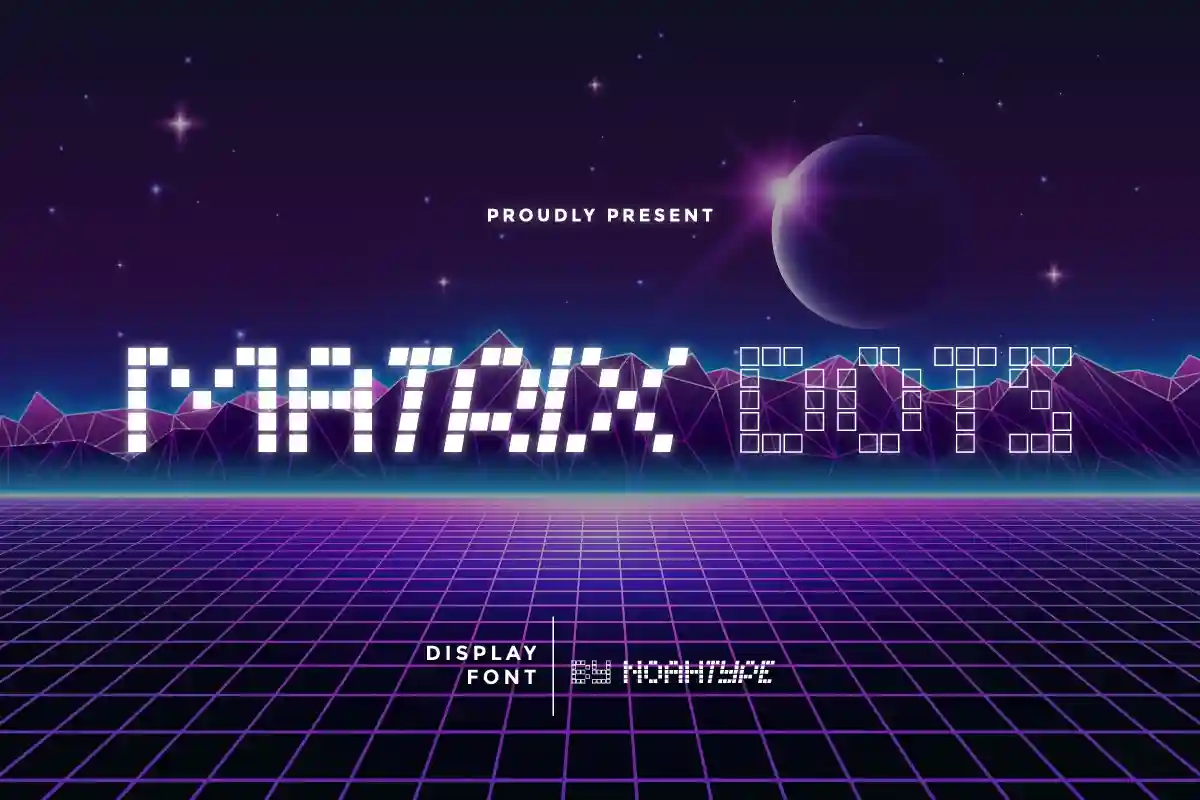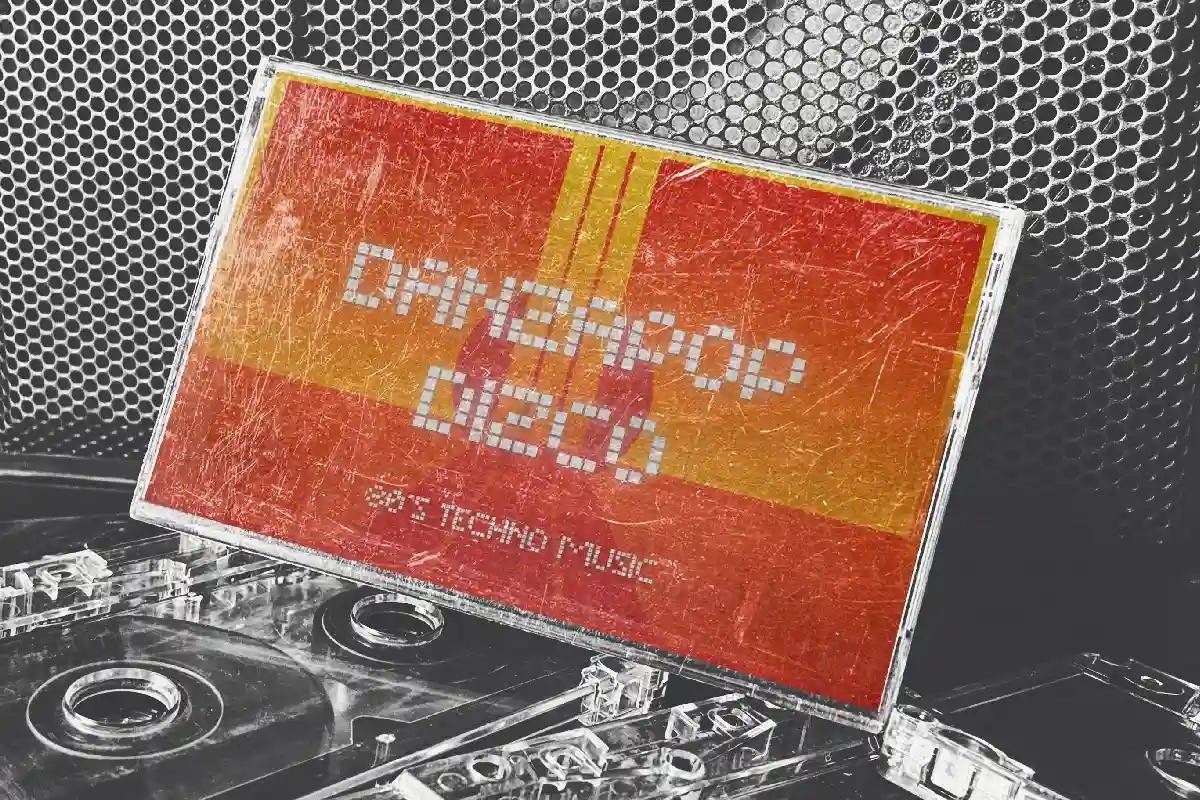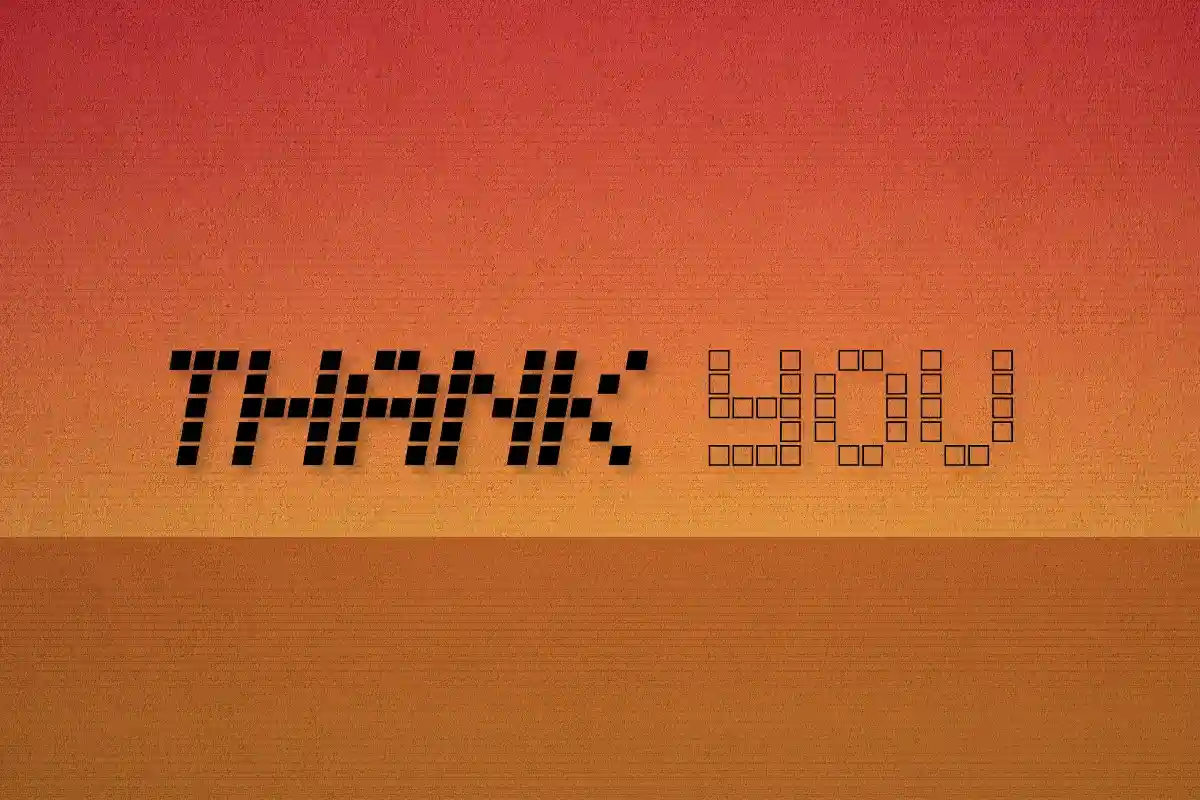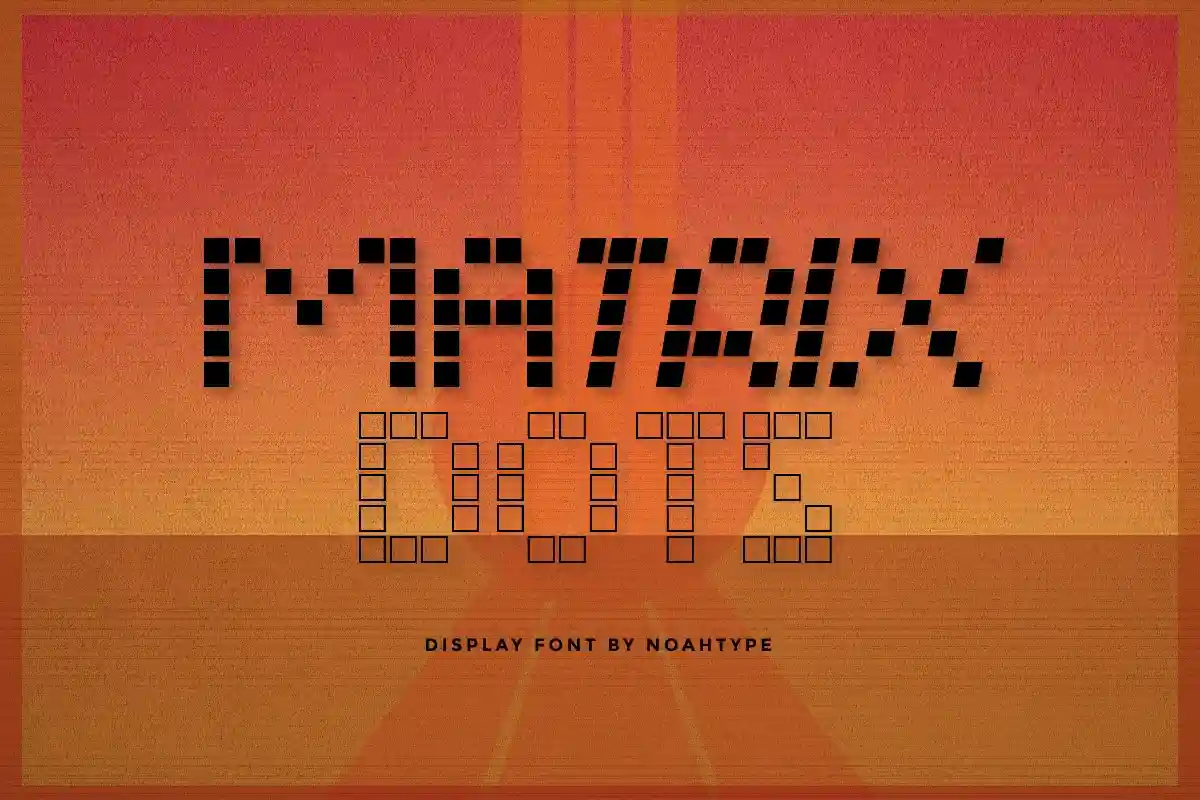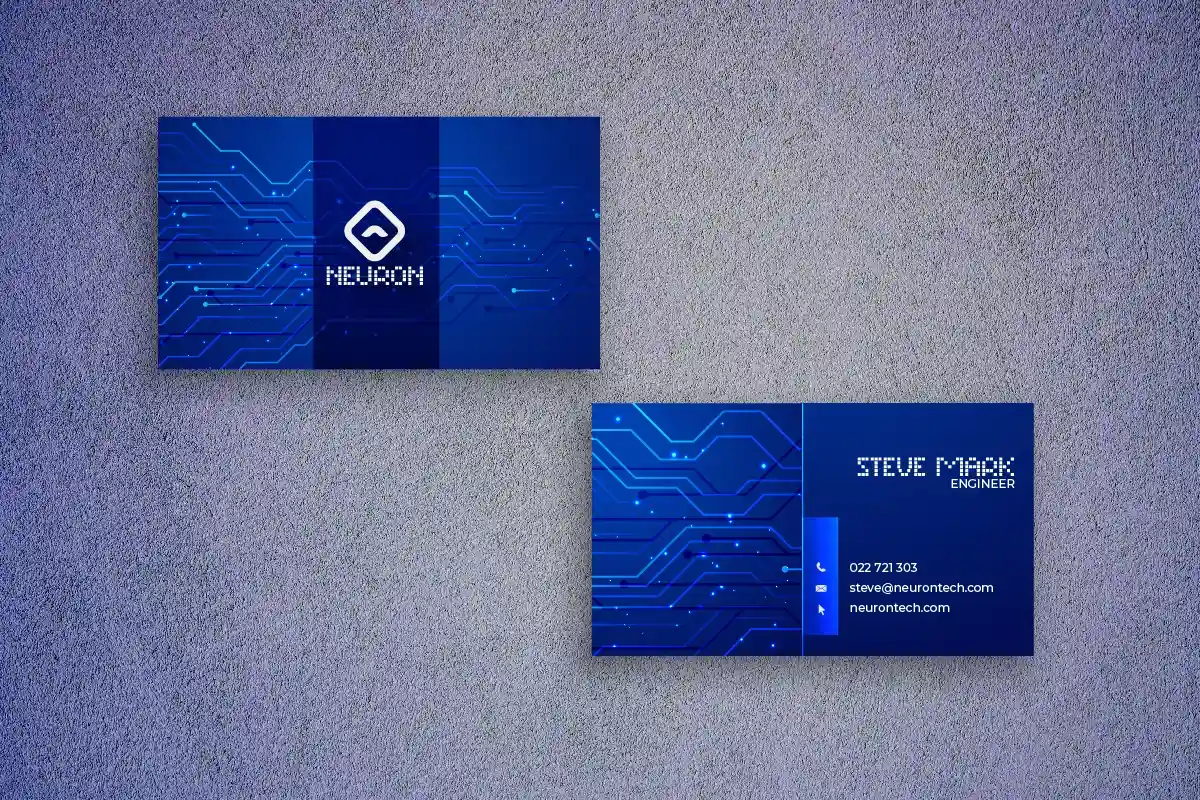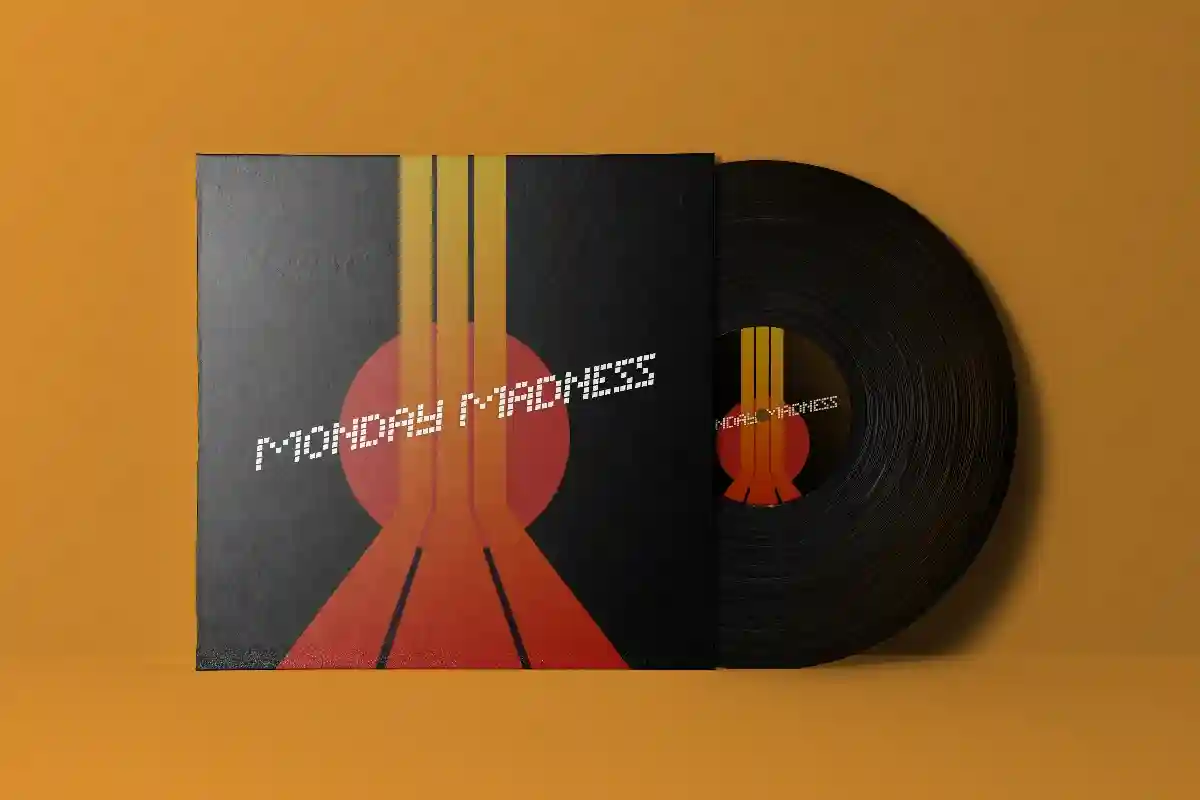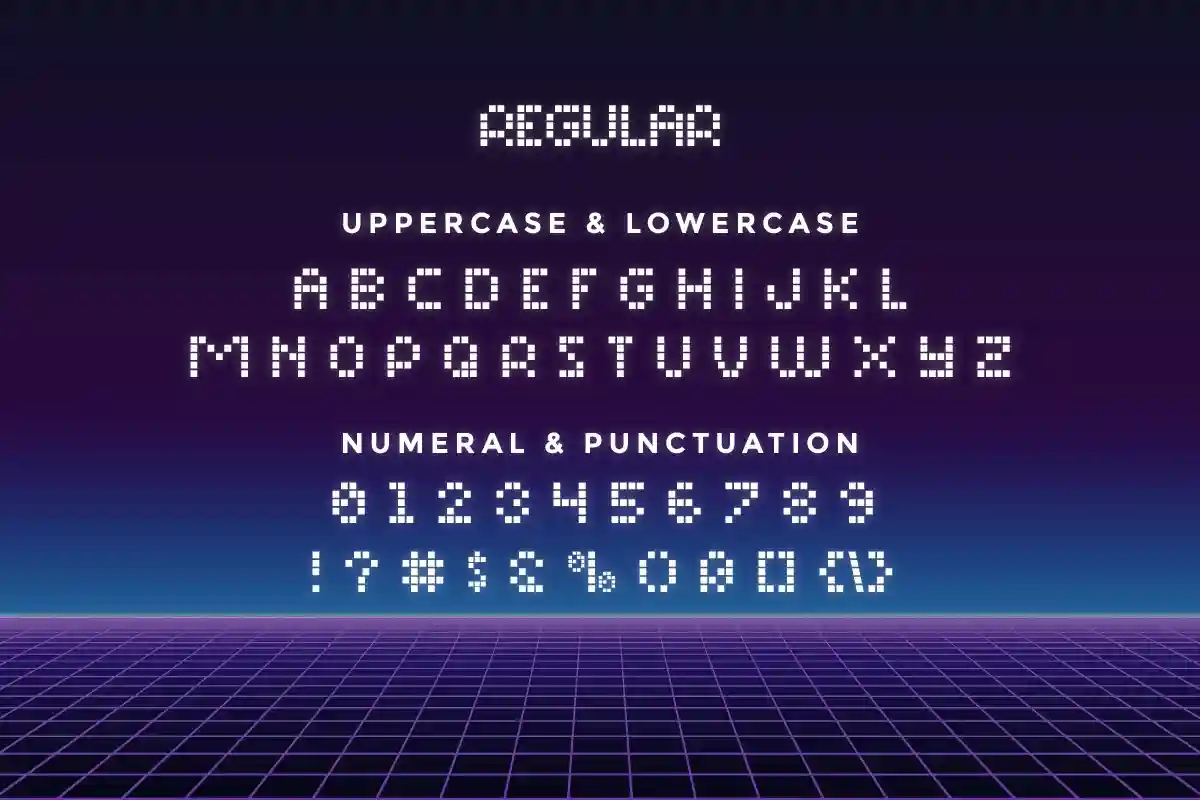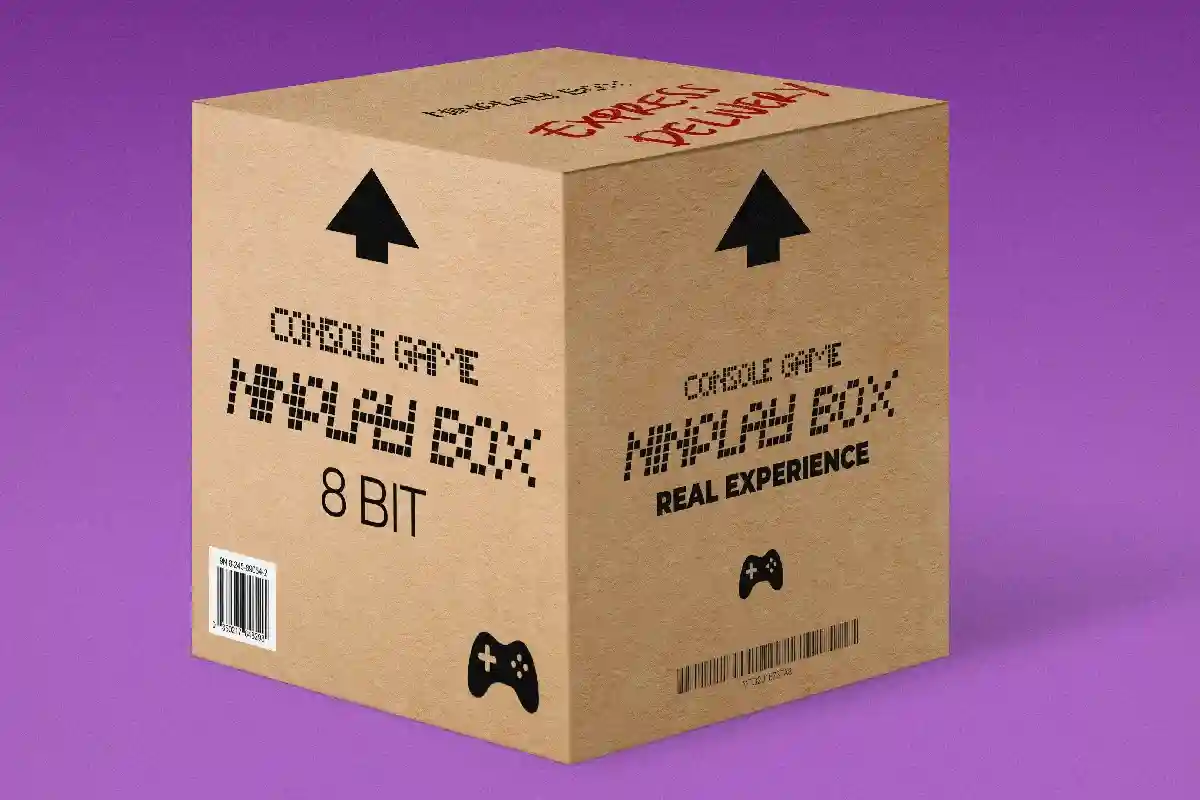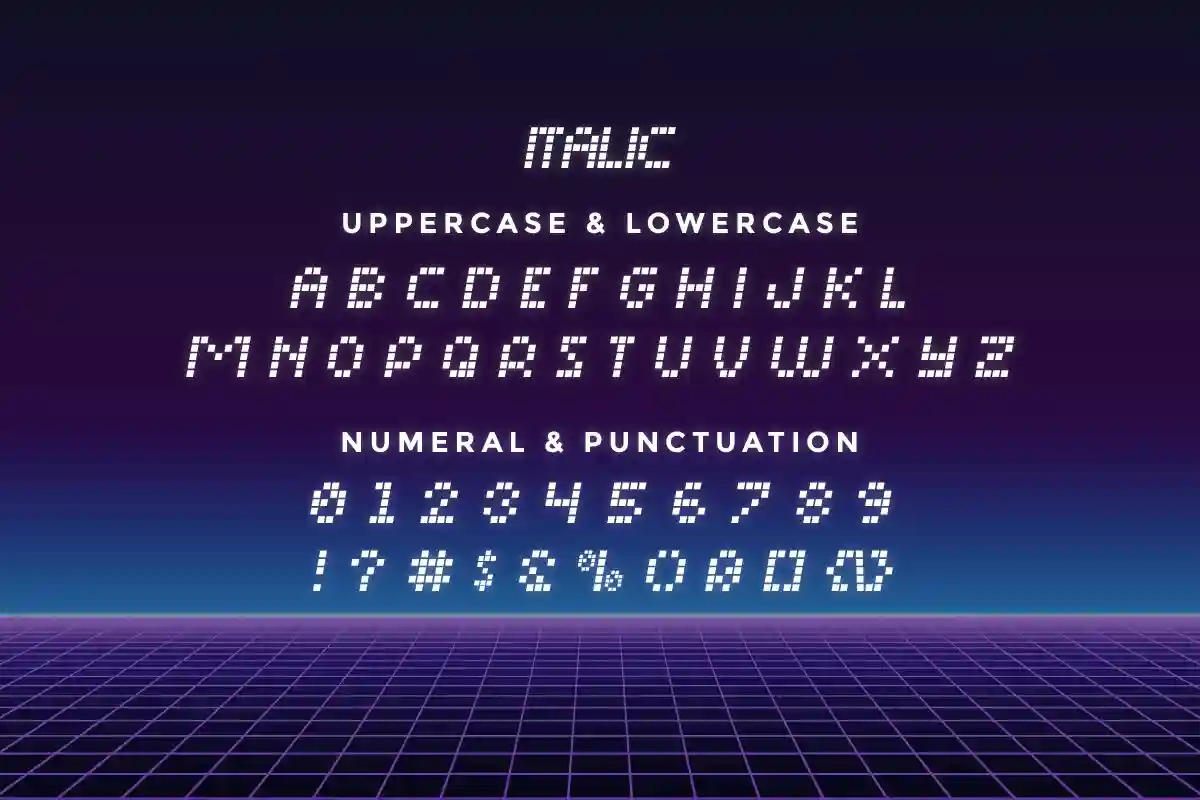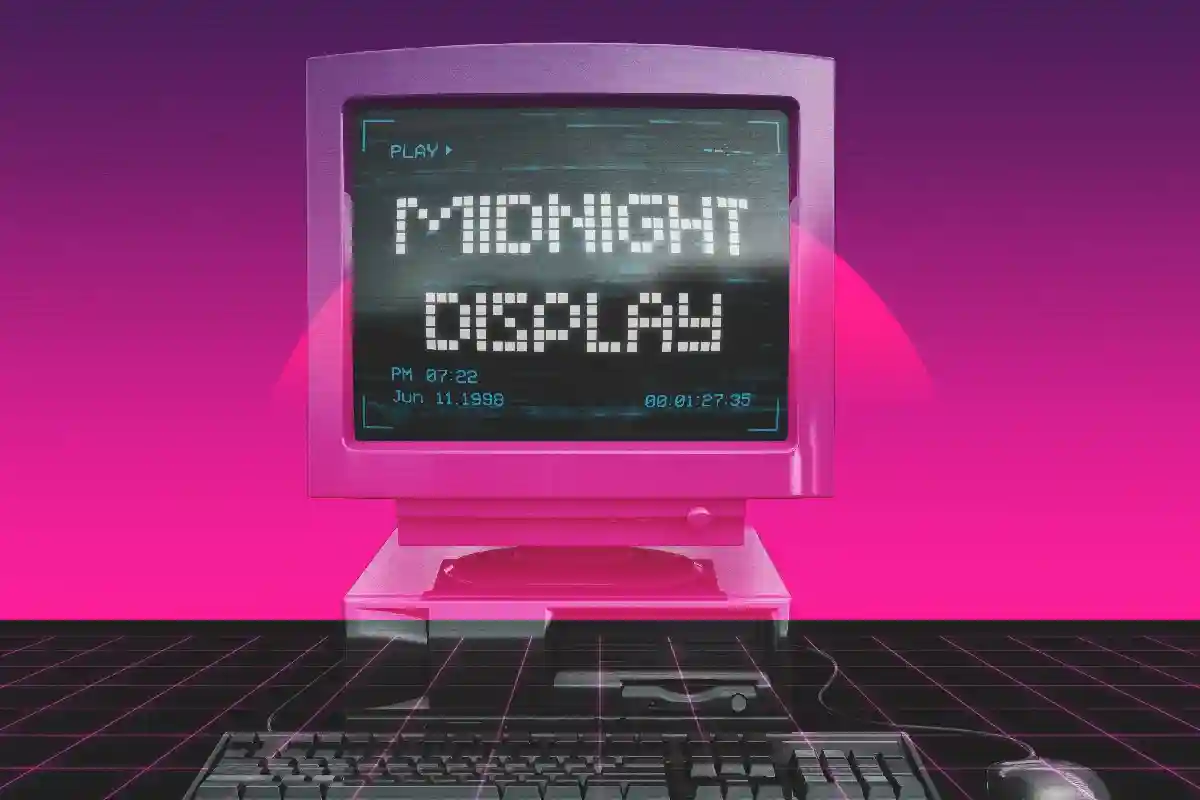
Matrix Dots Font is a display font with special dots futuristic style. The font was inspired by computer glyphs ,techno and hip poster. It has a unique style that will bring the special effect to the design. It will works for games, technology, events, spaceship and any other things. Matrix Dots includes full set of Uppercase and Lowercase Basic Characters, Numerals and Punctuation. You can also combine two or more styles on the text like we did on the cover, so you will great even more unique and special font. The font is perfect for many projects, headlines, logos, poster, tittle, products, etc
Matrix Dots Font have three styles : Regular, outline and italic. It will be ready to use both on Windows machine or Mac. It work well on Adobe software such as Illustrator, Photoshop and several other software.